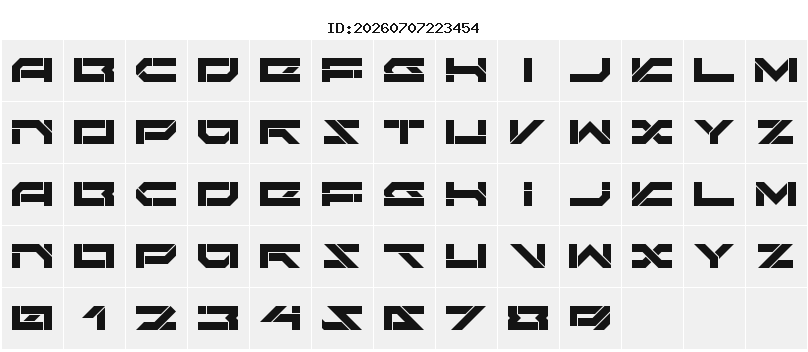
• Font Name: Darktech LDR
• Designer: Michał “Neoqueto” Nowak
• Description: ‚ÄúDarktech LDR‚Äù was built with FontStruct
About Darktech LDR.ttf
Darktech LDR.ttf is a modern, elegant sans-serif font designed for ultimate readability and visual harmony. Perfect for branding, headlines, web design, and print materials.